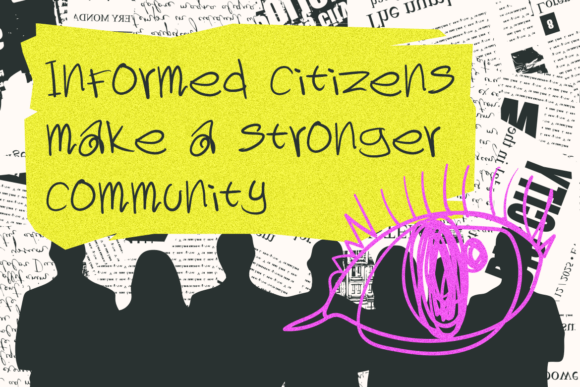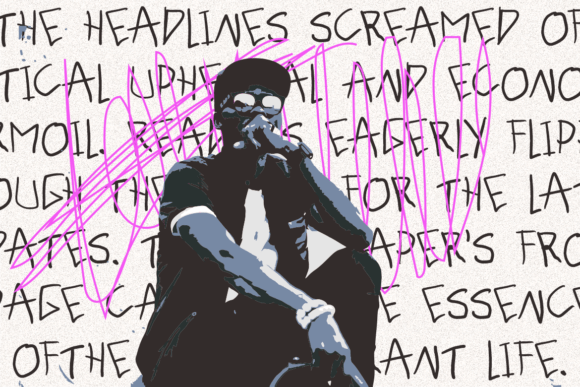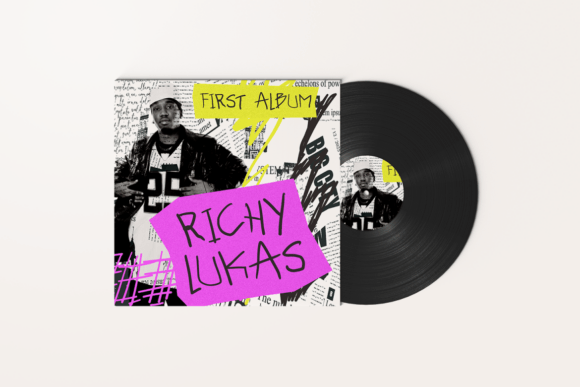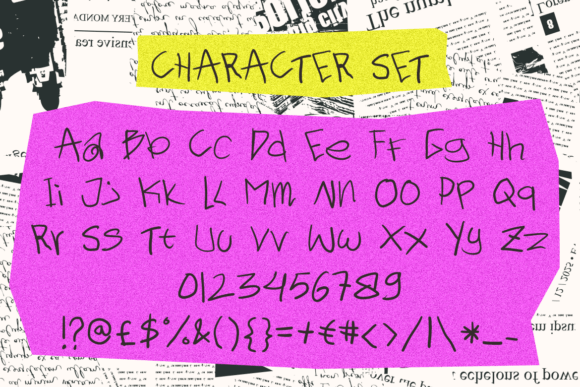
Introduction to Quirkine Font
Do you remember the thrill of unleashing your creativity as a child, letting your imagination run wild with every scribble and stroke of the pencil? For many of us, those carefree days are a cherished memory, and now, we can relive that magic with the Quirkine Font. This charming typeface is a love letter to childhood creativity, capturing the essence of spontaneity and whimsy in every letter.
As a designer, you know the value of a unique and high-quality design resource. Quirkine Font is a standout addition to your creative arsenal, offering a free download that’s perfect for adding a playful touch to your projects. With its transparent background and varied weights, this font is a versatile design tool that can elevate your work from mundane to mesmerizing.
Whether you’re working on a creative project, crafting a logo, or designing a book cover, Quirkine Font is an ideal choice for adding a dash of personality and warmth to your work. Its authentic handwritten feel is sure to captivate your audience and leave a lasting impression.
Key Features of Quirkine Font
- High-quality, unique font design suitable for creative projects, including digital art, graphic design, and publishing.
- Transparent background, making it easy to use in creative projects with complex backgrounds.
- Perfect for designers and artists looking for a distinctive and eye-catching font to enhance their work.
- Comes in a single size, with a resolution of 300 DPI, ensuring crisp and clear text display.
- Designed to be versatile and suitable for a wide range of creative projects, from posters to book covers and more.
Honest Review: Quirkine Font
As a designer, I’m always on the lookout for high-quality design resources to elevate my creative projects. Recently, I stumbled upon the Quirkine Font, and I must say it’s a hidden gem. ✨
The Quirkine Font is a free download that offers a unique and quirky aesthetic, making it perfect for designers who want to add a touch of whimsy to their designs. The font is available in various weights and styles, allowing for a high degree of customization. Additionally, the transparent background makes it easy to layer and combine with other design elements.
Here are some of the things that work well with the Quirkine Font:
- Unique and quirky aesthetic that adds a touch of personality to designs
- High degree of customization with various weights and styles
- Transparent background for easy layering and combination with other design elements
- May not be suitable for formal or professional designs due to its playful nature
- Some users may find the font’s quirks distracting or overwhelming
Overall, I’m impressed with the Quirkine Font’s versatility and unique charm. It’s a great addition to any designer’s toolkit, especially for creative projects that require a touch of whimsy.
Using in Creative Projects
For optimal results, use the Quirkine Font in conjunction with other high-quality design resources. Experiment with different font sizes, colors, and layouts to create visually appealing designs. Additionally, consider pairing the Quirkine Font with other fonts to add depth and variety to your project.
Quirkine Font is ideal for various creative projects, including:
- Designing business cards and letterheads
- Creating social media graphics and posts
- Developing branding materials, such as logos and brochures